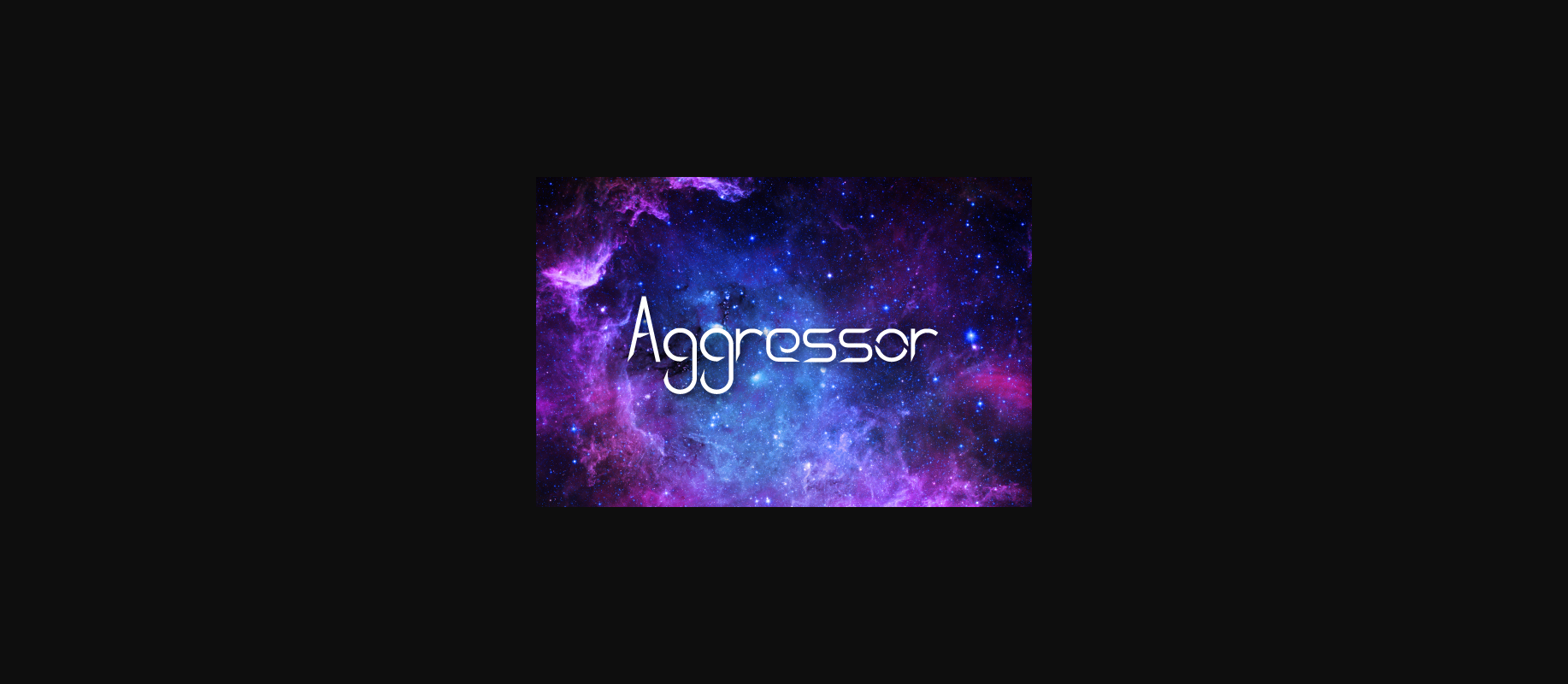
Aggressor Font
About Aggressor Font
Aggressor is a futuristic, yet stylish font. With its pointed edges and light design, it’s sure to bring any of your designs to the beautiful future.